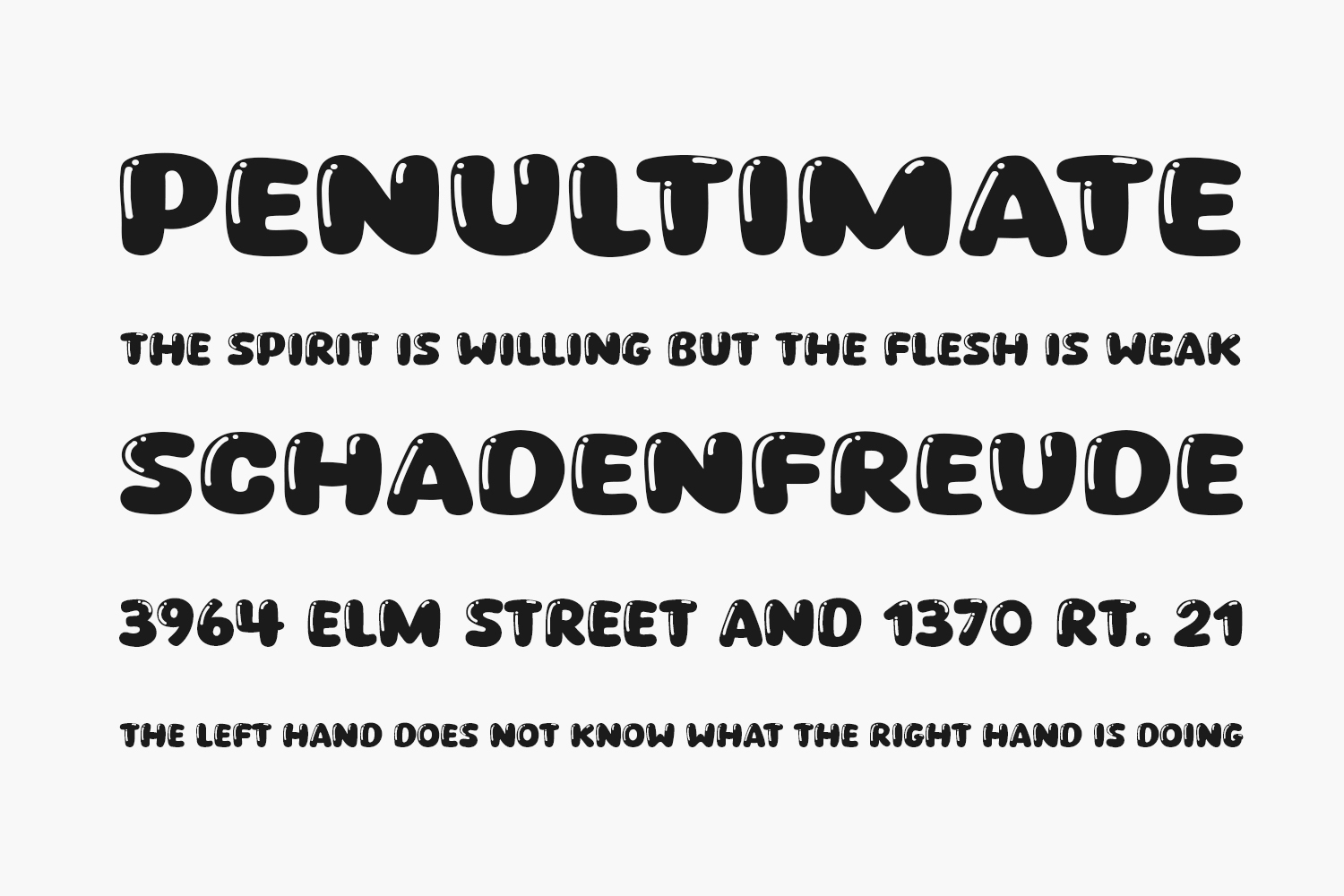
Copyduck Free Font
Copyduck Free Font, an elegant and contemporary display typeface, is ideal for a variety of design projects such as posters, logos, magazines, book covers, banners, and more! Elevate your designs with this exceptional font, seamlessly adaptable to a vast array of creative endeavors. Incorporate Copyduck into your projects and witness how it enhances their visual appeal, making them truly remarkable. Download the font for free if you need it for personal or commercial use.